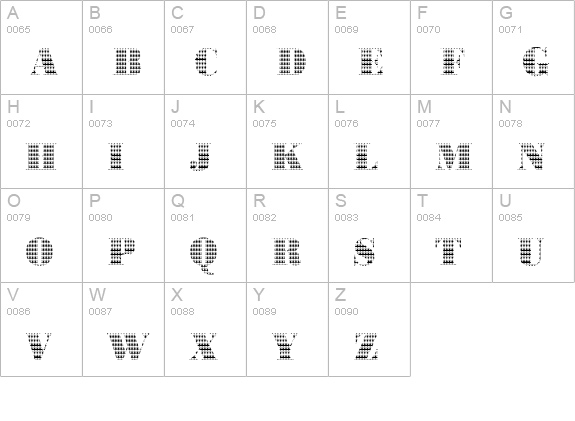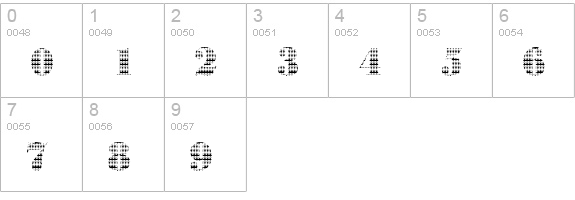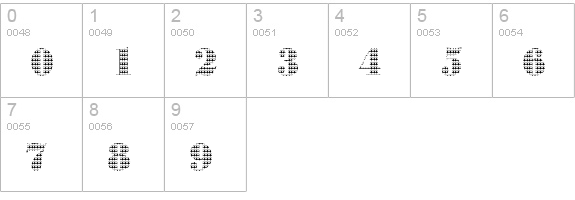
BodoniAlien-Regular Font Details
BodoniAlien-Regular is the standard, neutral variant in the BodoniAlien typeface family \xE2\x80\x94 well suited to general body text, paragraphs, and standard typographic work.
BodoniAlien-Regular is a unique and futuristic font that seamlessly blends the classic elegance of Bodoni with an otherworldly alien aesthetic. Its sleek lines and geometric shapes give it a modern and edgy look, perfect for projects that require a touch of avant-garde sophistication. The striking contrast between thick and thin strokes adds a dynamic and eye-catching element to any design. This font is ideal for creating attention-grabbing headlines, posters, branding materials, and more. Its versatility allows it to be used in a variety of creative projects, from sci-fi themes to high-fashion editorials. Best of all, BodoniAlien-Regular is available for free download at FontsMarket.com, making it easily accessible for designers looking to add a touch of extraterrestrial flair to their work. Don't miss out on the opportunity to elevate your designs with this captivating and modern font.